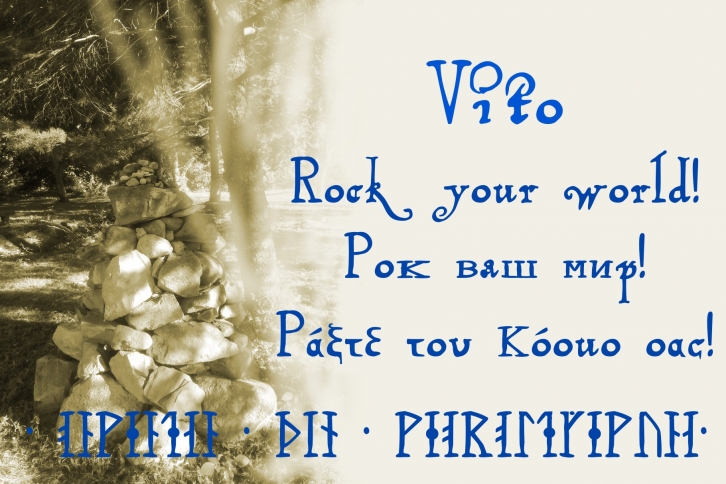
A blissful marriage of fanciful swirls and upright strength loosely based on a 16th century exemplar. Comes in both OTF and TTF formats with regular, bold, italic, italic bold, light, italic light, and small caps. It has in addition to a massive suite of Latin characters also Greek, Cyrillic, and for further amusement Runic yielding versatile face with over 1600 defined glyphs.